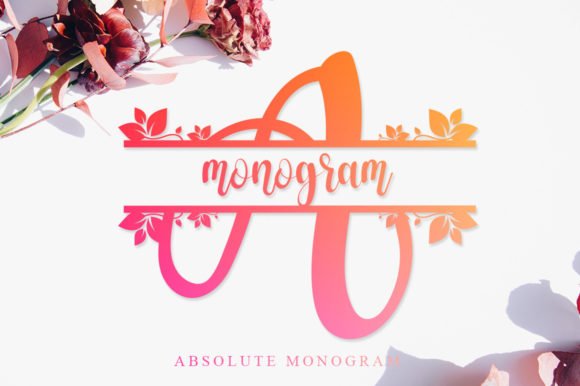
Discover the Magic of the Absolute Monogram Font
Do you remember the moment when you first fell in love with a font? For me, it was the intricate details of a beautiful script that made my design dreams come true. And that’s exactly what happens when you use the Absolute Monogram Font – a stunning, highly detailed decorative font that will elevate your designs to new heights.
Whether you’re a wedding planner, a social media guru, or a graphic designer, the Absolute Monogram Font is your new best friend. Its ravishing style and exquisite details make it perfect for creating gorgeous wedding invitations, beautiful stationery art, and eye-catching social media posts. This versatile font is a game-changer for designers who want to add a touch of elegance and sophistication to their work.
With the Absolute Monogram Font, you’ll be able to create designs that truly stand out from the crowd. Its unique style and high level of detail make it a valuable addition to any designer’s toolkit, and its endless possibilities will keep you inspired for hours on end.
Key Features of Absolute Monogram Font
- Font Family: Absolute Monogram Font offers a unique set of monogram fonts, each with its own distinct style and flair.
- Unique Characteristics: Each monogram font is carefully crafted to feature intricate details and ornaments, adding an extra layer of sophistication and elegance to designs.
- Font Count: Includes a total of 100 unique monogram fonts, each with its own set of characters, making it an ideal choice for designers who need a wide range of options.
Designer Review: Absolute Monogram Font
I recently had the chance to work with the Absolute Monogram Font, and I must say it’s been an interesting experience. Here’s my honest take on this font.
- The Absolute Monogram Font has a unique and elegant design that can add a touch of sophistication to any project.
- It’s highly customizable, making it perfect for designers who want to add a personal touch to their work.
- The font is well-suited for formal and professional settings, such as business cards, letterheads, and wedding invitations.
- The font can be quite difficult to read in smaller sizes, which may affect its usability in certain contexts.
- The customization options can also make the font feel cluttered or overwhelming if not used judiciously.
- Some users may find the font’s ornate design to be too flashy or attention-seeking.
Overall, I would say that the Absolute Monogram Font is a solid choice for designers who want to add a touch of elegance and sophistication to their work. While it may have some limitations, it’s definitely worth considering for the right project. With careful use and customization, this font can be a real showstopper.
The Absolute Monogram Font is commonly used in:
1. Business cards and letterheads.
2. Social media graphics and profiles.
3. Marketing materials and brochures.
4. Branding and identity materials.